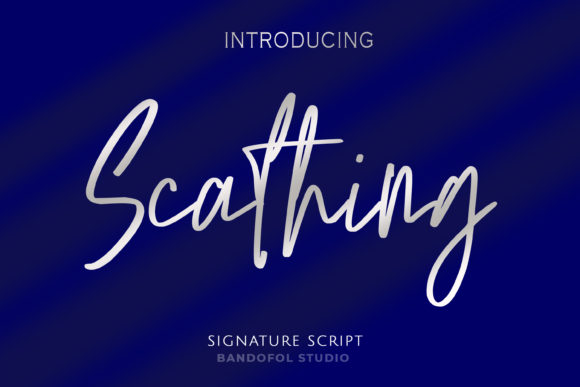
Introducing Scathing Font, the epitome of elegance and sophistication for your recommendation letters! This captivating script font, meticulously crafted by the renowned Bandofol Studio, is a true masterpiece that will elevate your words and make your recommendations shine.
Picture this: your carefully penned recommendation letter, adorned with the graceful curves and ethereal flow of Scathing Font. Each letter dances across the page, carrying with it the weight of your endorsement and the promise of a bright future for the recipient.
With its relaxed and asymmetrical design, Scathing Font exudes a sense of confidence and authenticity. It whispers of your discerning taste and unwavering belief in the individual you're recommending. Its stylish and elegant character adds a touch of allure, ensuring that your letter stands out from the crowd.
Whether you're writing a letter of recommendation for a promising student, a dedicated employee, or a deserving colleague, Scathing Font will lend your words an air of authority and credibility. Its unique and eye-catching appearance will command attention and leave a lasting impression on the reader.
But it's not just about aesthetics. Scathing Font is also incredibly versatile. Its balanced proportions and legible character set make it suitable for a wide range of applications. Use it to create bespoke letterheads, design captivating social media posts, or craft visually stunning marketing materials.